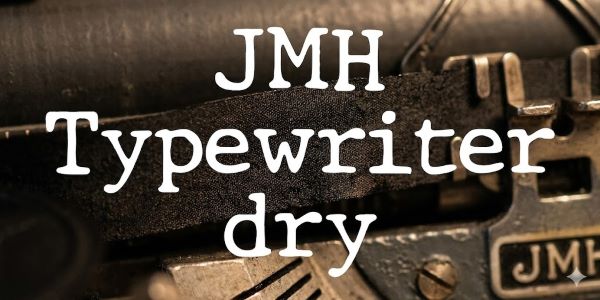
JMH Typewriter Dry Font
JMH Typewriter Dry by Jorge Morán is a free typewriter font that takes a different approach to the genre — its letterforms deliberately under-inked and dry, capturing the faded, ribbon-depleted quality of a typewriter running low on ink. This typewriter font adds atmospheric depth and a sense of age that fully inked versions cannot replicate, making it ideal for worn correspondence aesthetics, aged document designs, and editorial work that needs its typography to feel genuinely time-worn. Four weights included. Free for personal use.